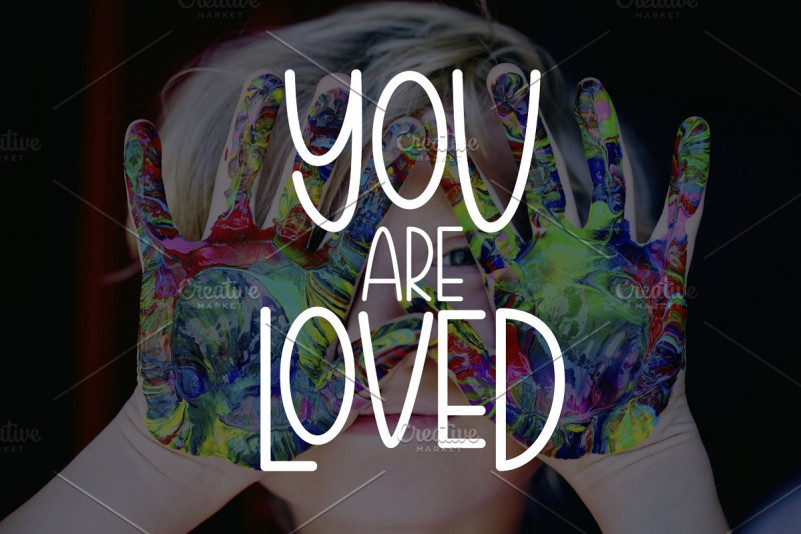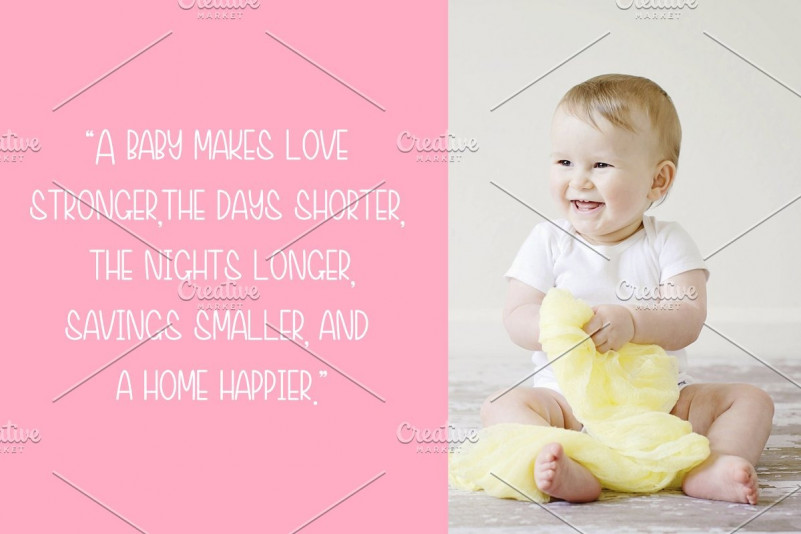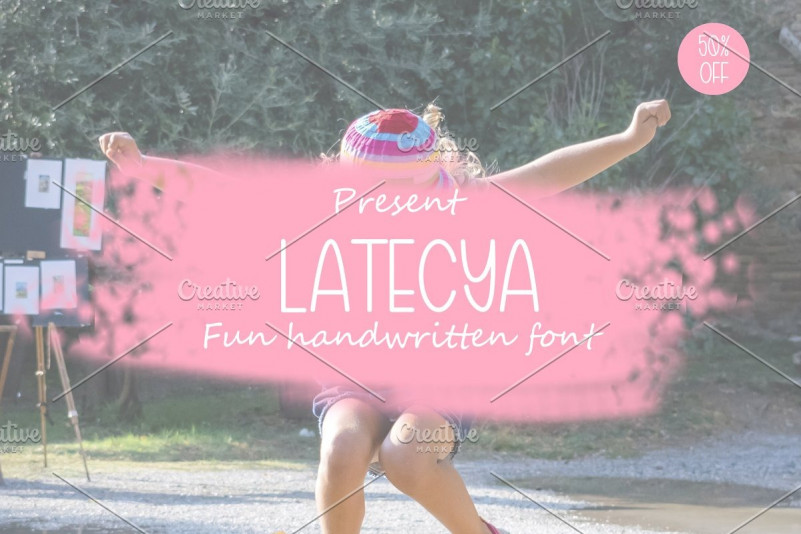
Latecya Script Font
Latecya is a handwritten font with big, quirky letters. It is an ALL CAPS font. This font is perfect for quotes, headings, blogs, logos, invitations and more!